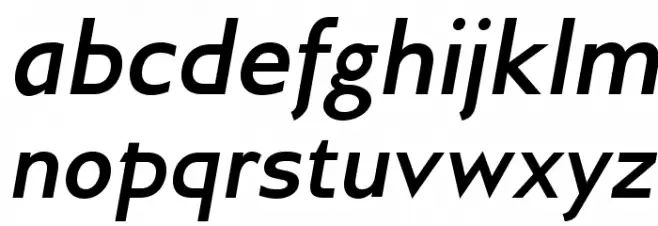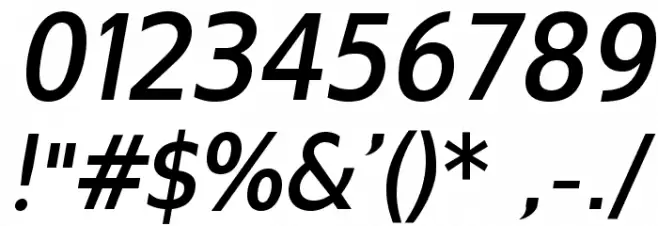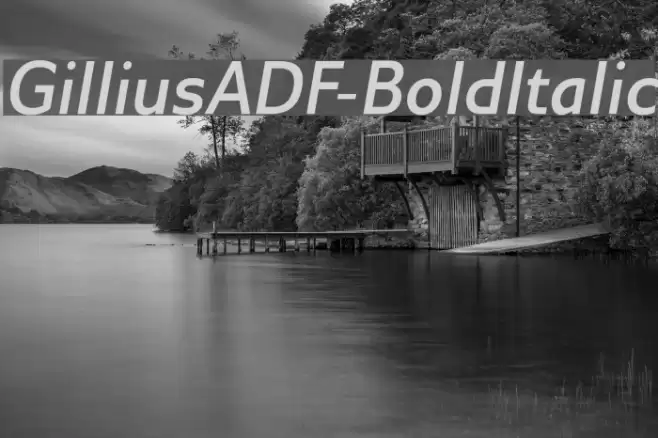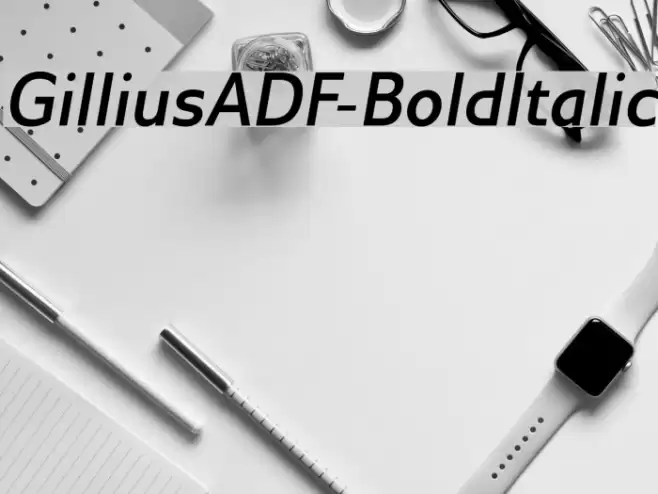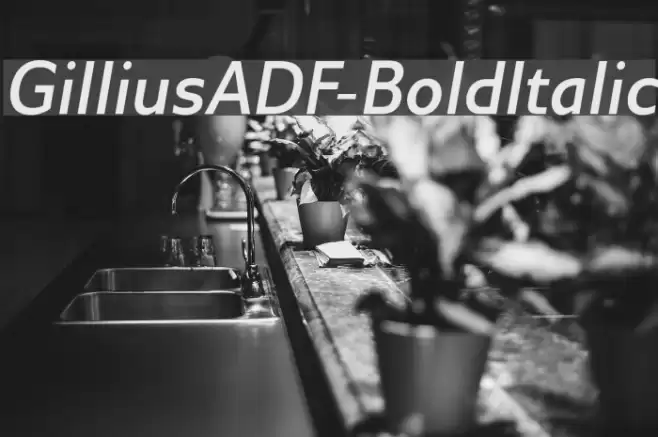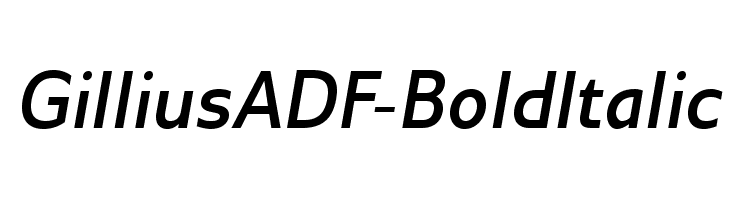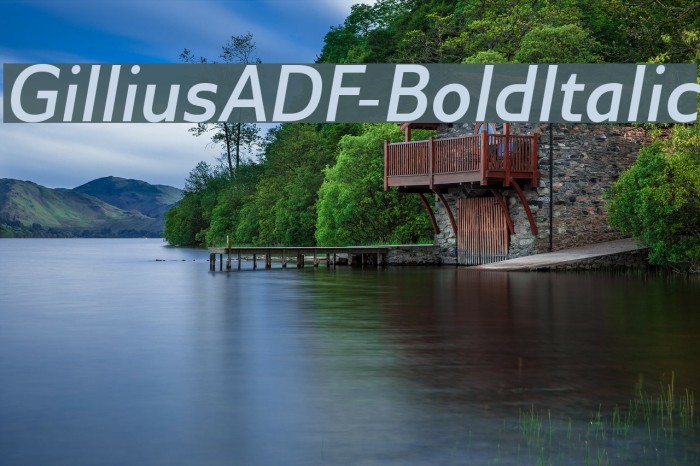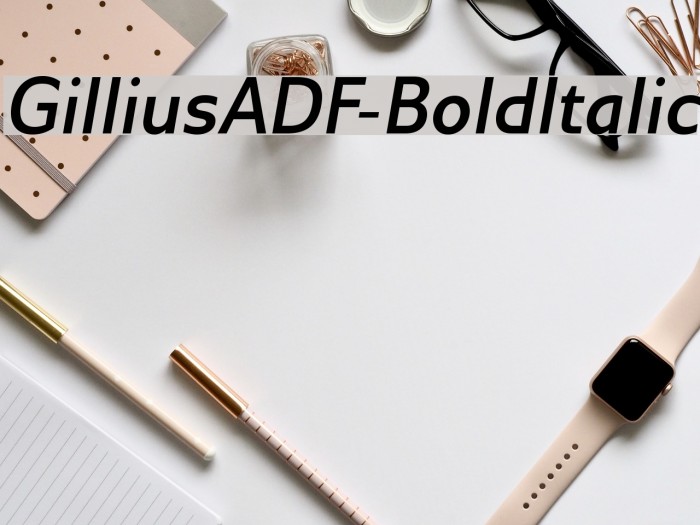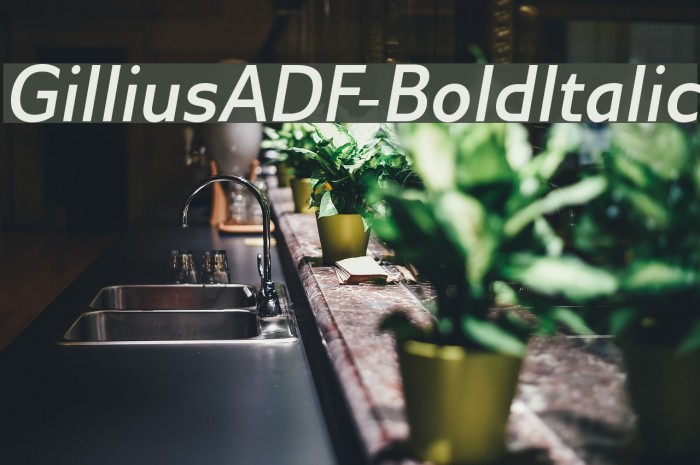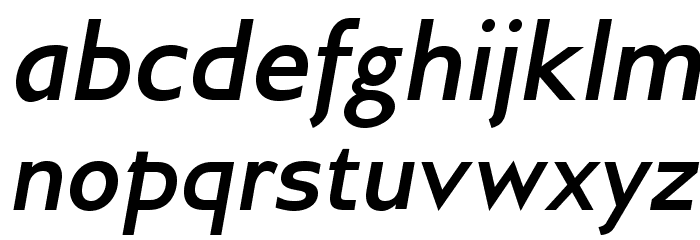
GilliusADF-BoldItalic
This font exhibits a modern and clean design with a bold and italicized style. The characters are slightly slanted, giving a dynamic and forward-moving appearance. The strokes are consistent in thickness, providing a uniform look across all characters. The uppercase letters are well-proportioned, while the lowercase letters maintain a friendly and approachable feel. The numerals are clear and easy to read, making them suitable for various applications. Special characters are distinct and well-integrated into the overall design, ensuring versatility in usage.
A modern, bold italic font with a clean and dynamic style.
- Proposed Projects: Ideal for branding, advertising, headlines, and digital media where a modern and bold statement is needed.
- Use Case: Headlines, Logos, Digital Media